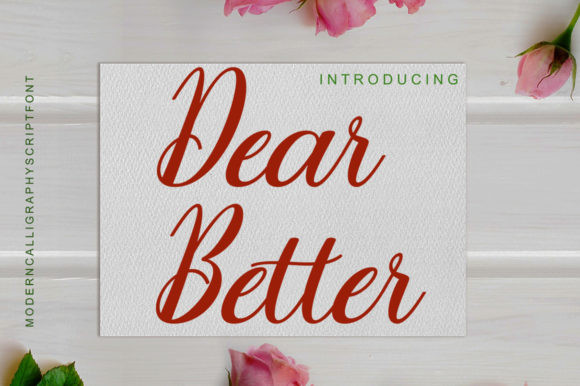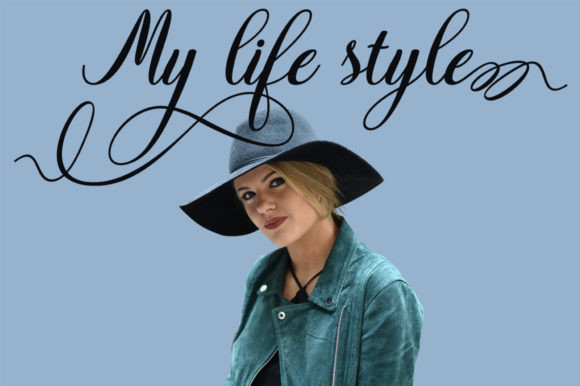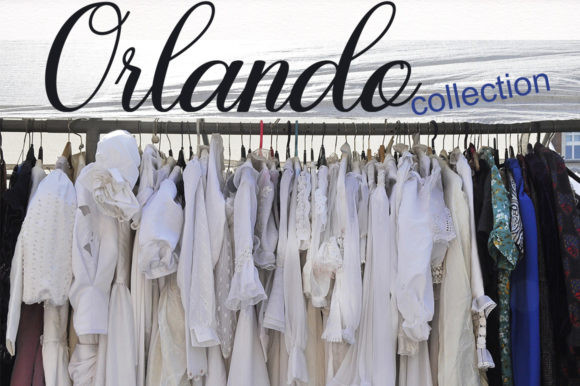
Dear Better Font
Dear Better is a flowing handwritten font, described by an elegant touch, perfect for your favorite projects. Fall in love with its incredibly distinct and timeless style and use it to create spectacular designs!